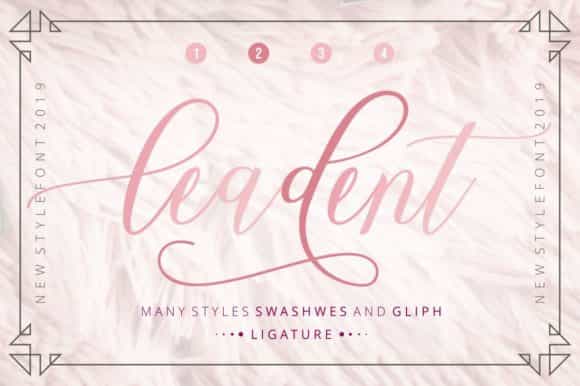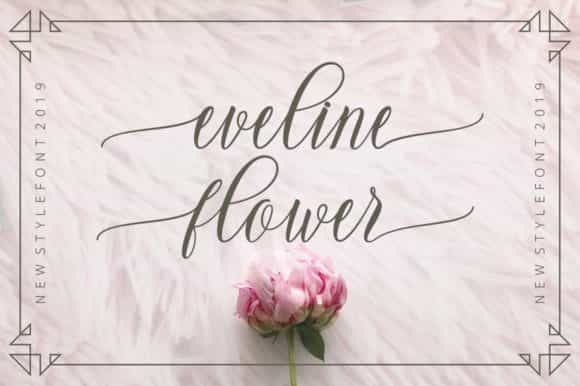
Leadent Script as the name suggests is a modern calligraphy type of font. Leadent gives a beautiful look for logotype , website header, fashion design, wedding card design and many more. Leadent is served with elegant style, It is also provided in Blessed font type, The font includes all the lower & upper case letters, wide range of numeric and punctuations.